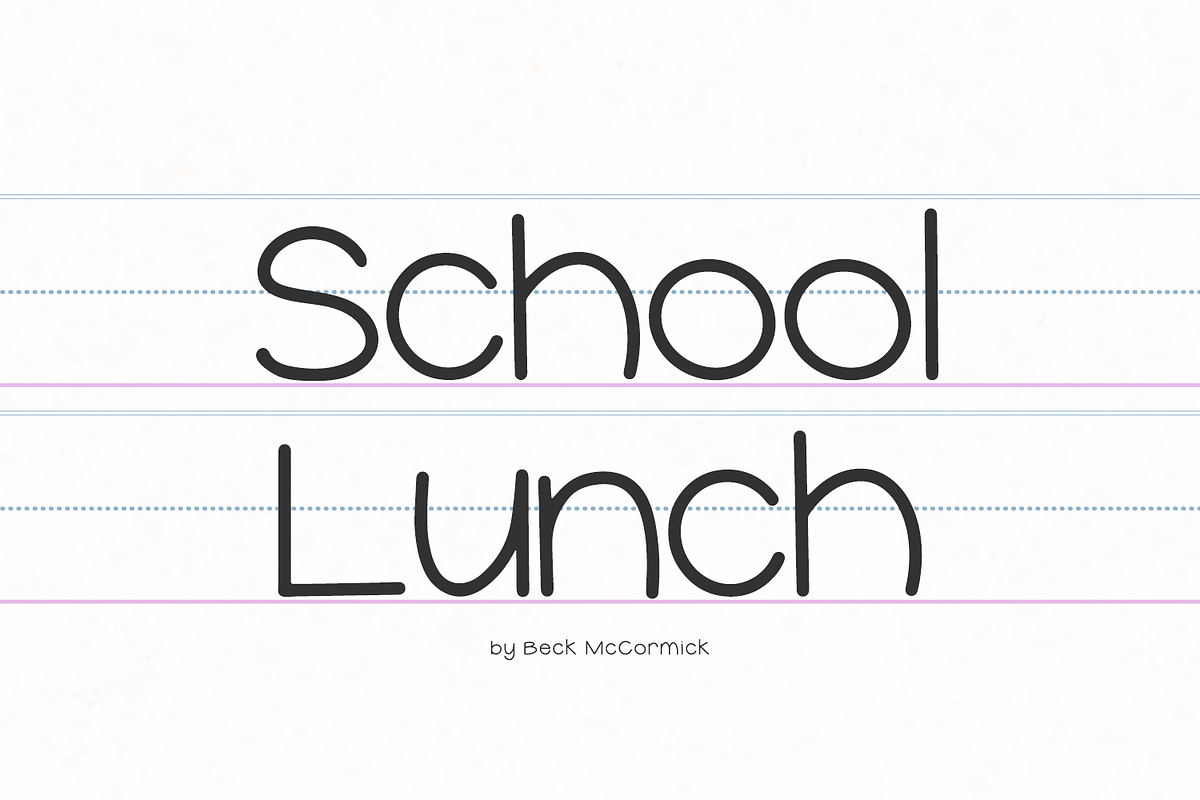
School Lunch Sans Font Free Download is a fun, friendly, and easy-to-read sans serif typeface designed with young learners and playful projects in mind. With its rounded edges, cheerful style, and clear structure, this font is perfect for classroom materials, children’s books, educational apps, posters, crafts, and anything related to school and learning.
Its approachable look makes it a favorite for teachers and designers alike—ideal for keeping text engaging while maintaining clarity for early readers. Whether you're creating flashcards or designing a kid-friendly brand, School Lunch Sans offers both personality and practicality.
Add a dash of fun and friendliness to your next design with the playful charm of School Lunch Sans!